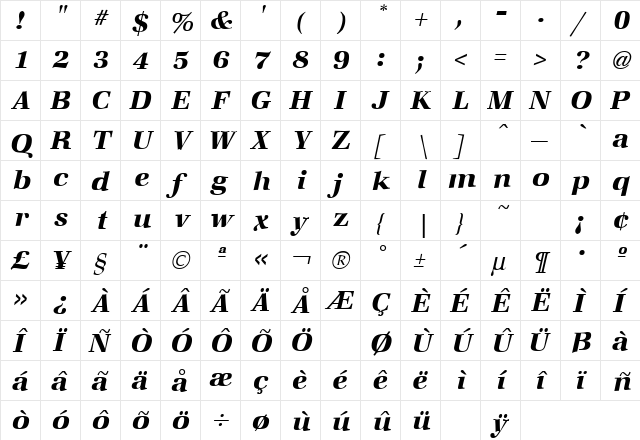
Zapf Italic
Design Context for Zapf Typeface
Zapf is a composed and adaptable typeface that performs quietly and consistently across a wide range of design contexts. The dynamic lean of this cut emphasises speed and emphasis in any layout.
Pro Tip: Use Zapf for emphasis, pull quotes, and subheadings where its slanted energy can add rhythm to the layout.